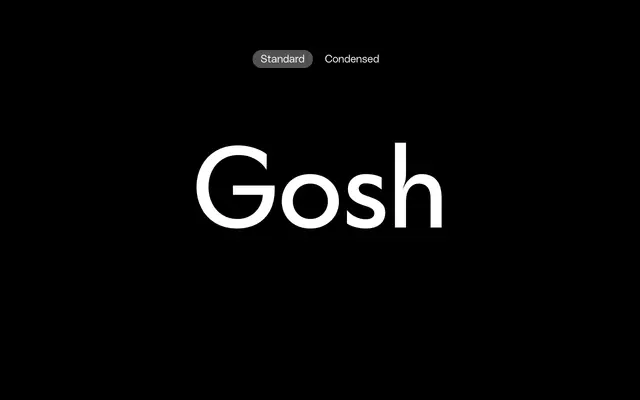
A Futura-inspired geometric sans from Gradient, spanning seven weights with italics and leaning firmly into Bauhaus modernism.
Built around circular geometry and stripped-back forms, it draws directly from the tradition of Paul Renner's Futura and the Bauhaus school. The family runs across seven weights from Light to Heavy, each with a matching italic, giving 14 styles in total. Suited to editorial, branding and display work where clean geometric structure is the priority.
Explicitly positioned as Futura-adjacent and Bauhaus-inspired, with geometric precision as its defining characteristic — classic markers of the geometric sans tradition.